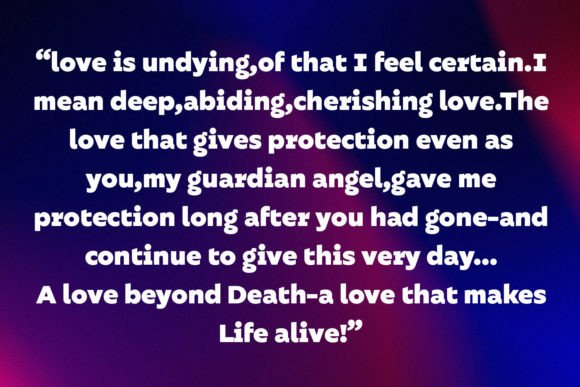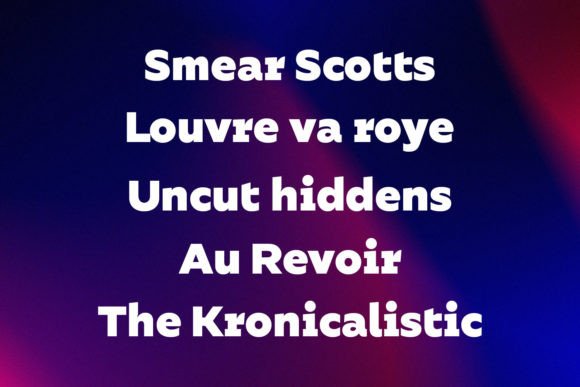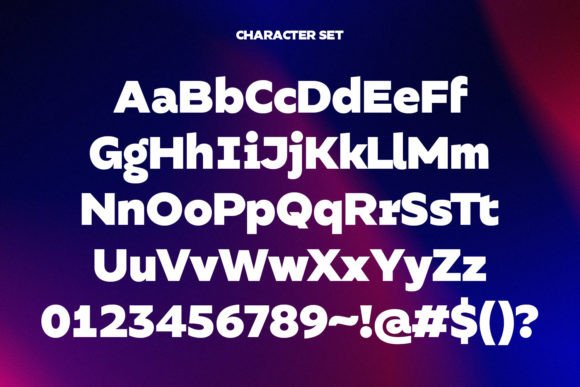
The Designer’s Delight: Getting to Know Grethol Font
I’ll never forget the time I was working on a logo design project for a trendy new coffee shop. My client wanted a modern, fun vibe that would appeal to a young audience, but I was struggling to find the perfect font. That’s when I stumbled upon Grethol Font – a modern sans font with bold strokes and a playful character that instantly caught my eye. In this article, I’ll share my experience with Grethol, its features, and how to make the most of it in your designs.
An Honest Review of Grethol Font
What I Love About Grethol ✨
- ✅ Unique Character: Grethol has a distinct personality with its bold strokes and fun ligatures, making it perfect for creative projects.
- ✅ Versatility: This font is great for logo design, social media posts, movie titles, book titles, and even long text letters.
- ✅ Pairing Options: Grethol works beautifully with script or serif fonts, making it an excellent choice for secondary text.
- ⚠️ Limited Formality: Grethol’s playful nature might not make it the best fit for very formal or traditional projects.
- ⚠️ Glyph Overload: With so many ligatures and alternates, it can be overwhelming to navigate the glyphs panel.
The Story Behind Grethol Font
Grethol Font was designed with the modern creative in mind. Its creator aimed to craft a font that was both bold and playful, with a unique character that would stand out in any design. Inspired by the urban landscape and contemporary art, Grethol is the perfect blend of form and function.
Q: What makes Grethol Font unique?
A: Grethol’s bold strokes, fun ligatures, and range of alternates make it a one-of-a-kind font for creative projects.
Q: Is Grethol suitable for body text?
A: While Grethol can be used for longer text, it’s best suited for headlines, titles, and short paragraphs due to its bold and playful nature.
Q: Can I use Grethol with other fonts?
A: Absolutely! Grethol pairs well with script, serif, and other sans-serif fonts, making it a versatile addition to your font library.
With Grethol Font, the possibilities are endless. Whether you’re a designer, crafter, or creative hobbyist, this modern sans font is sure to bring a fresh perspective to your projects. So go ahead, get creative, and make stunning works with Grethol font! 🎨